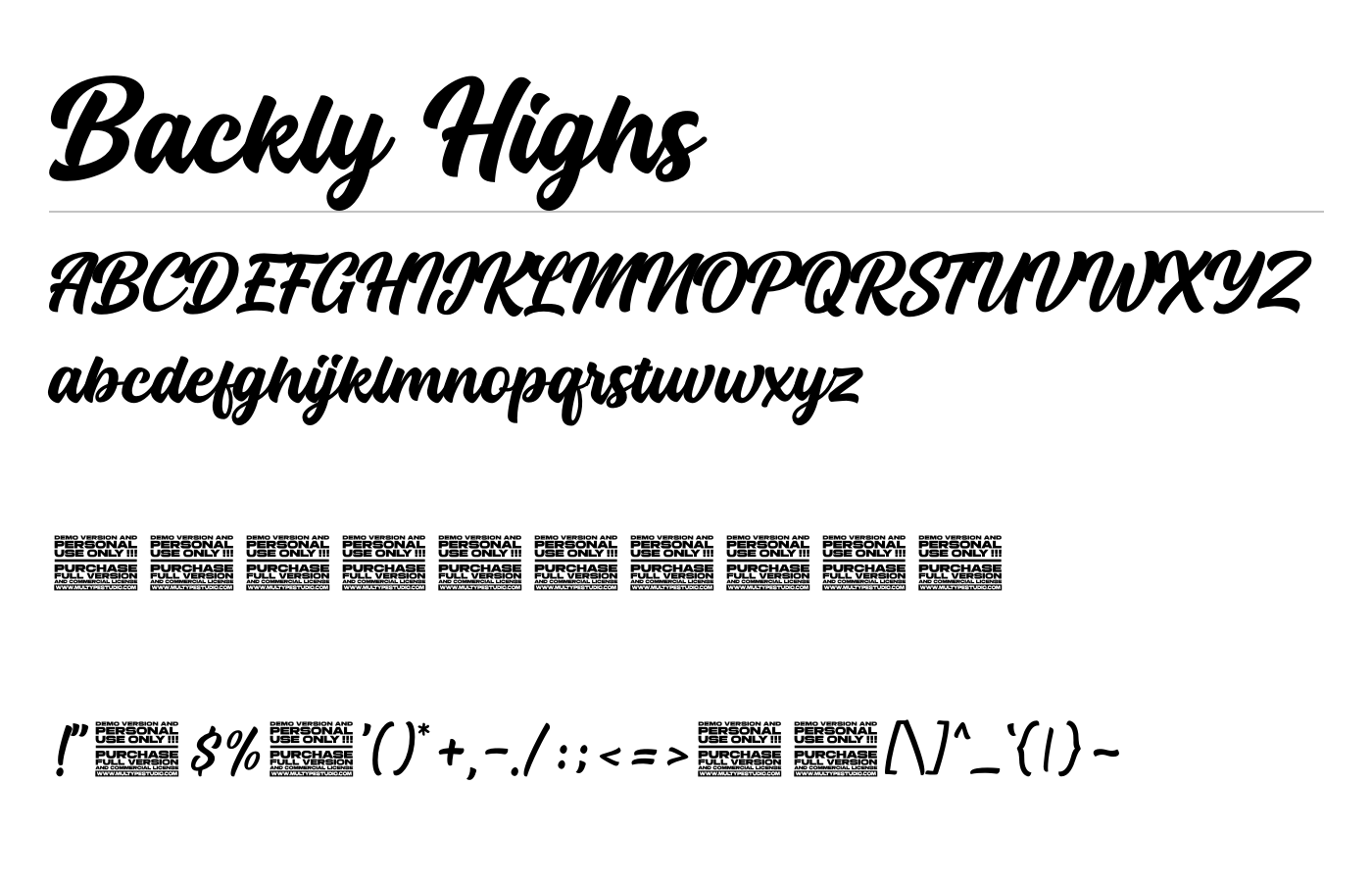
Backly Highs is a bold, script-style font with a friendly and casual feel, featuring smooth, rounded strokes and a modern handwritten look. Its balanced x-height and slightly condensed width make it ideal for eye-catching headlines, branding, and playful design projects that want to convey warmth and personality. This font works especially well for logos, packaging, and social media graphics where a stylish yet approachable vibe is desired.
Backly Highs Font
About Backly Highs Font
| Font family | Backly Highs Font |
| Designer | Mulia Yanto |